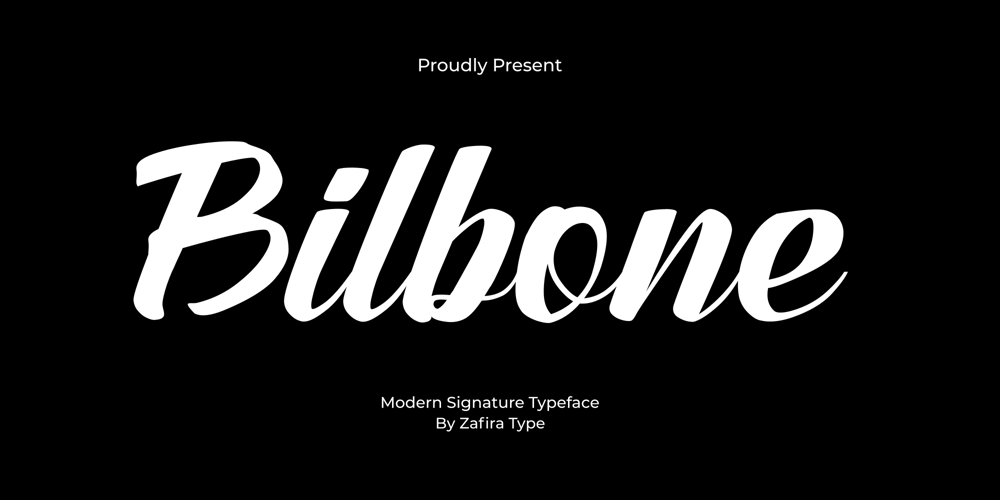
Bilbone Font Family was designed by Su Hirno and published by Zafira Type. Bilbone contains 1 styles and family package options. Bilbone Script is a hand-lettered script font. It has a bold and smooth style and is perfect for making any design stand out. Best suitable for branding, packaging, print titles, t-shirt design, food design, and similar projects.